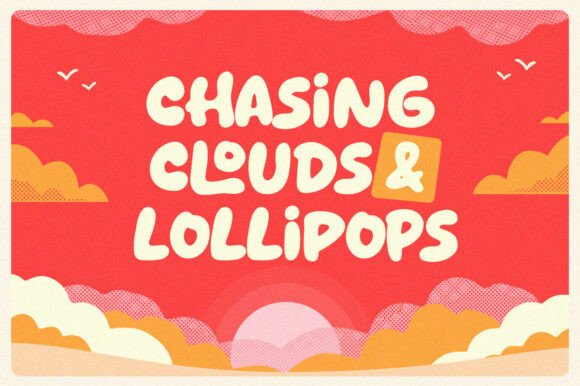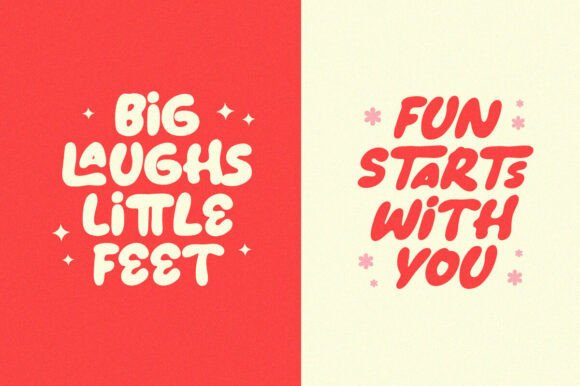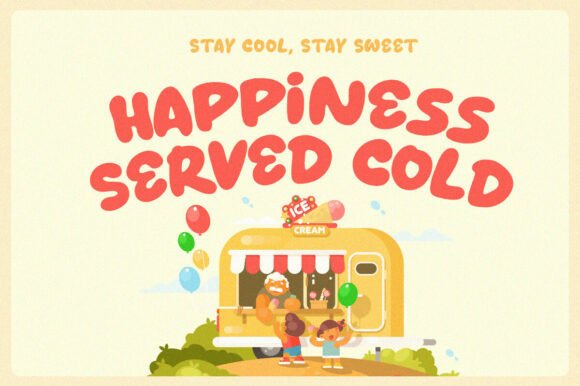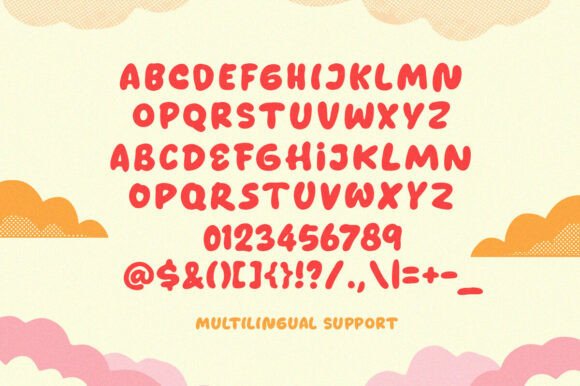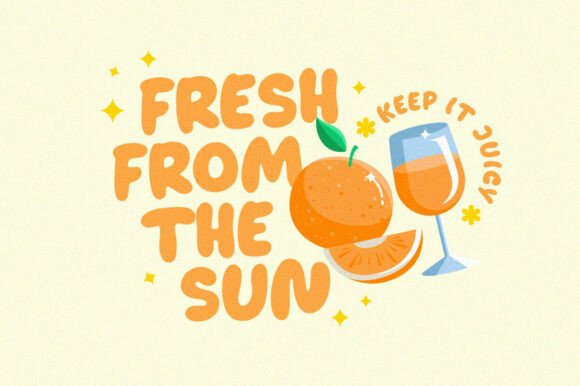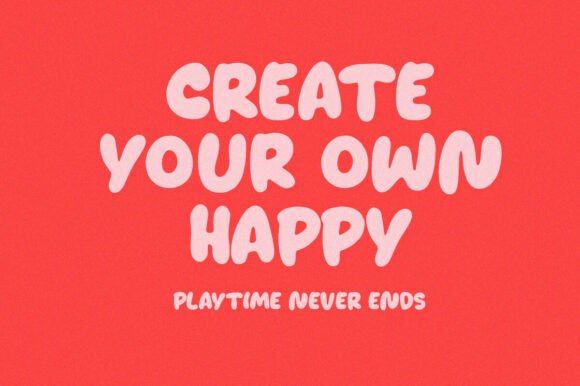
Introducing Giggle Drop Font: The Ultimate Display Font for Playful Designs
Are you looking for a font that can add a touch of fun and playfulness to your designs? Look no further than Giggle Drop, a bubbly display font that’s sure to spark joy and laughter. With its rounded, plump letterforms and retro, pop-inspired aesthetic, Giggle Drop is the perfect choice for designers and crafters who want to inject humor and personality into their work.
Perfect for Playful Designs
Giggle Drop is designed to be playful and fun, making it ideal for a wide range of design projects. Whether you’re creating kids’ products, toy packaging, comic titles, or party invitations, this font is sure to bring a smile to your audience’s faces. Its cartoon-like appeal and cheerful vibe make it a great choice for branding, casual graphic design, and any other project that needs a dash of whimsy.
Flexible and Customizable
Giggle Drop comes in two styles: regular and slanted. This gives you flexibility in how you express your ideas and allows you to choose the perfect look for your design. The font is also PUA-encoded, which means you get effortless access to all glyphs, swashes, and alternate characters. This makes it easy to customize your creations and add your own personal touch.
Key Features of Giggle Drop Font
- Rounded, plump letterforms: Perfect for creating playful and fun designs
- Retro, pop-inspired aesthetic: Gives your designs a cheerful and vibrant feel
- Cartoon-like appeal: Adds a touch of humor and personality to your work
- Regular and slanted styles: Gives you flexibility in how you express your ideas
- PUA-encoded: Effortless access to all glyphs, swashes, and alternate characters
Why Choose Giggle Drop Font?
There are many reasons why Giggle Drop font stands out from the crowd. Here are just a few:
- Unique and eye-catching: Giggle Drop is a one-of-a-kind font that’s sure to grab attention
- Easy to read: Despite its playful nature, Giggle Drop is still easy to read, even at smaller sizes
- Versatile: This font can be used for a wide range of design projects, from branding to packaging
- Fun and engaging: Giggle Drop is the perfect way to add a touch of fun and personality to your designs
How to Use Giggle Drop Font
Giggle Drop font is easy to use and can be incorporated into a wide range of design projects. Here are a few ideas to get you started:
- Kids’ products: Use Giggle Drop to create fun and playful packaging for kids’ toys and products
- Party invitations: Add a touch of whimsy to your party invitations with Giggle Drop font
- Comic titles: Use Giggle Drop to create eye-catching titles for comics and graphic novels
- Branding: Incorporate Giggle Drop into your branding to add a touch of personality and humor
In conclusion, Giggle Drop font is a fun, bubbly display font that’s perfect for designers and crafters who want to add a touch of playfulness to their designs. With its rounded, plump letterforms, retro aesthetic, and cartoon-like appeal, Giggle Drop is sure to spark joy and laughter. Whether you’re creating kids’ products, party invitations, or branding, this font is a great choice. So why not give Giggle Drop a try and see how it can bring a smile to your audience’s faces?